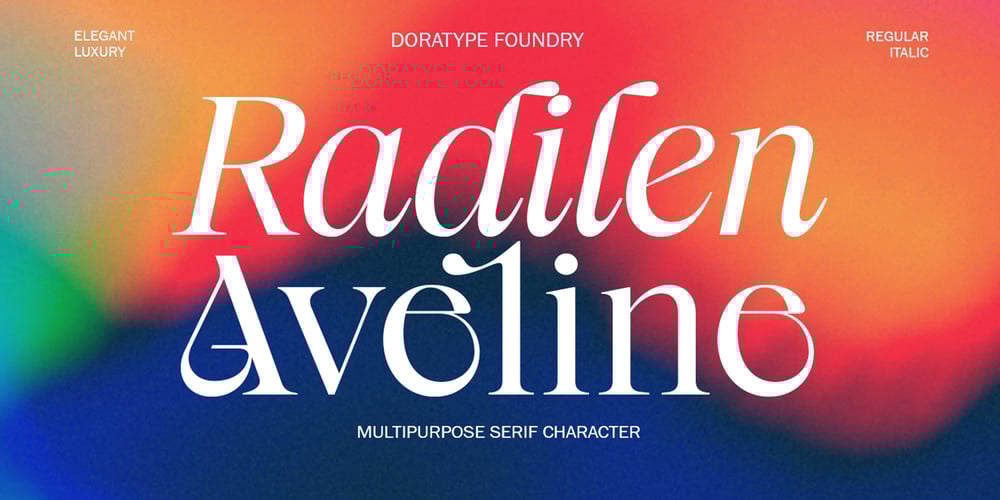
Radilen Aveline
Radilen Aveline font
Radilen Aveline Font Family was designed by Zahratul Laila and published by Dora Typefoundry. Radilen Aveline contains 2 styles and family package options. Introducing a fancy serif font with italics.Radilen Aveline is a series of elegant serif fonts that give traditional design elements a modern feel with their clean lines, smooth curves and sharp details making them suitable for a variety of your design projects making them ideal for titles, headlines, editorial designs, monograms, branding, logos, poster designs, and more.The regular Radilen Aveline has 47 Ligatures and 28 Alternatives.WHAT’S INCLUDED: Radilen Aveline Regular Radilen Aveline Italic We highly recommend using a program that supports OpenType features and Glyphs panels like Adobe apps and Corel Draw, so you can see and access all Glyph variations.This type of family has become the work of true love, making it as easy and fun as possible.I really hope you enjoy it!Thank you Enjoy the font and go get creative 🙂